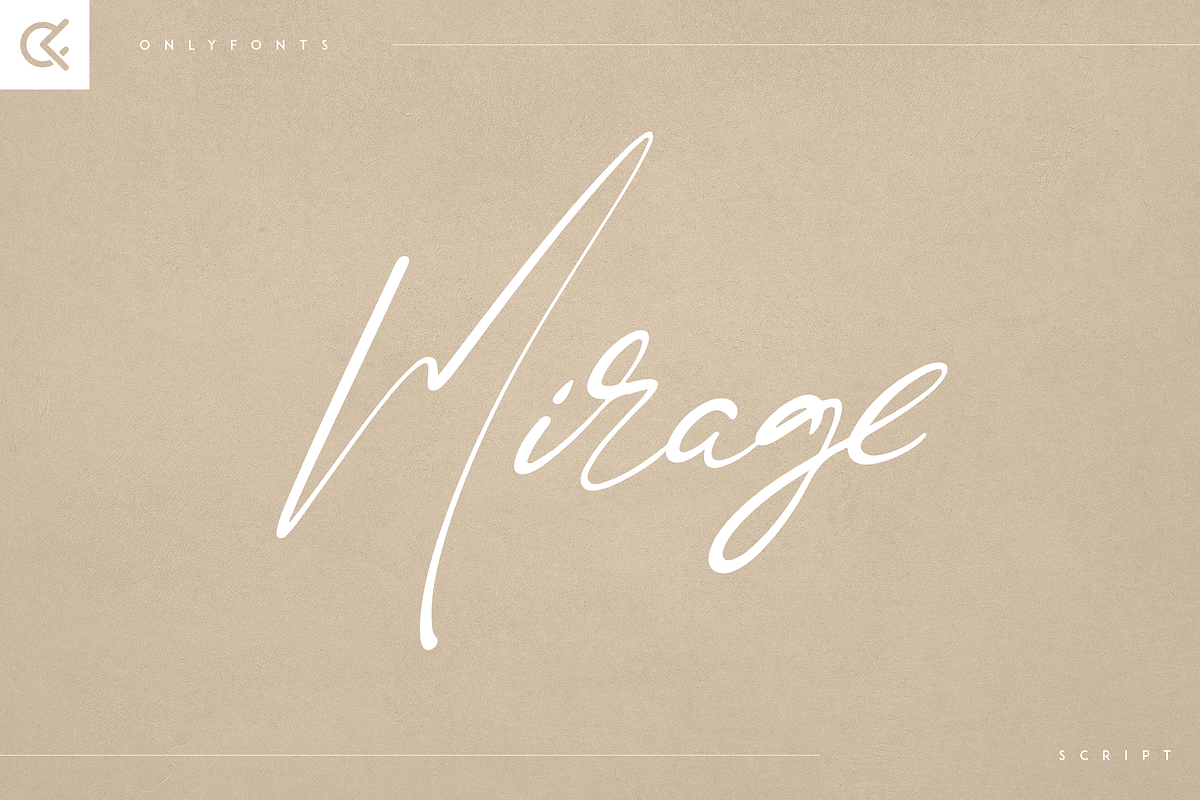
Mirage Creative Script Font Free Download
Mirage Creative Script Font Free Download is an artistic and flowing typeface designed to bring flair and elegance to any project. With its stylish curves, hand-lettered charm, and creative swashes, Mirage is perfect for logos, wedding invitations, social media graphics, product packaging, and more.
The font exudes a modern boho vibe with a touch of sophistication, making it ideal for creatives who want their designs to feel personal and polished. It includes a full set of characters, ligatures, and alternate glyphs to give you freedom and flexibility in your layout.